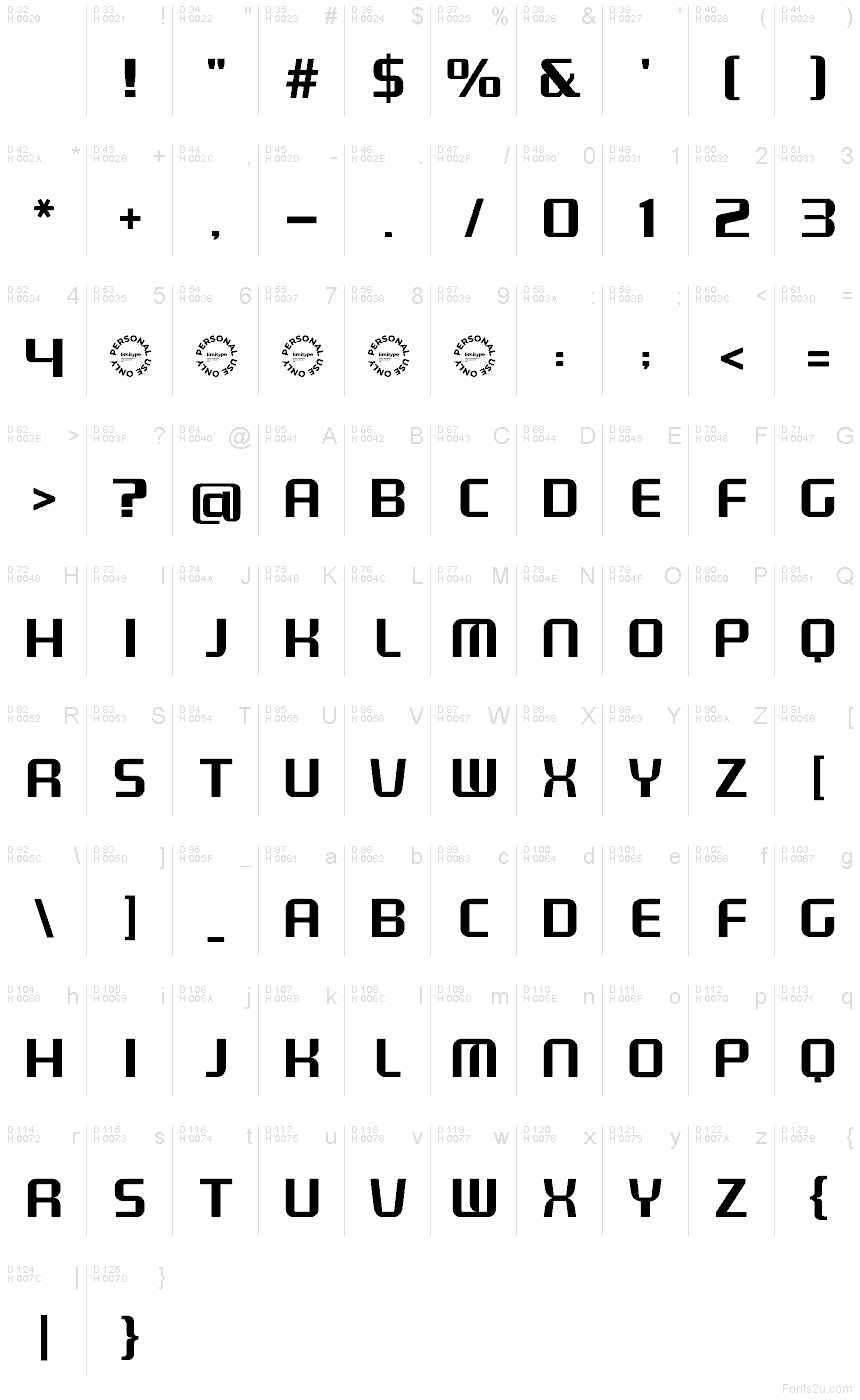
Neospeed Demo
Neospeed font by Anton Bolin is a modern display typeface designed with an expanded width. Its geometric letters provide a futuristic look and feel that makes your text stylish and eye-catching. Characters are sleek and minimalist which in turn adds to the technology-oriented structured personality of Neospeed.
Neospeed is ideal for video game design, movie titles, book/album covers, posters, logos, headlines, and the labeling of products especially if they’re related to technology. Type it on presentations or social media posts for an active futuristic feel! Download it free for your digital and printed projects.